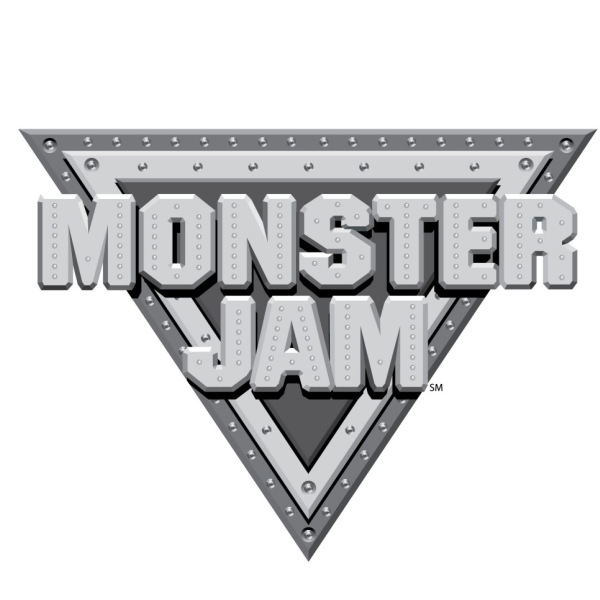
Monster Jam Font
Fonts in UseMonster Jam is a live motorsport event featuring monster trucks competing in various competitions, such as racing, freestyle, and obstacle course. It's known for its high-octane action and fan-pleasing stunts.
The Monster Jam logo utilizes a typeface resembling ITC Machine, a geometric display font introduced in 1970. Additional information about this font can be found here.